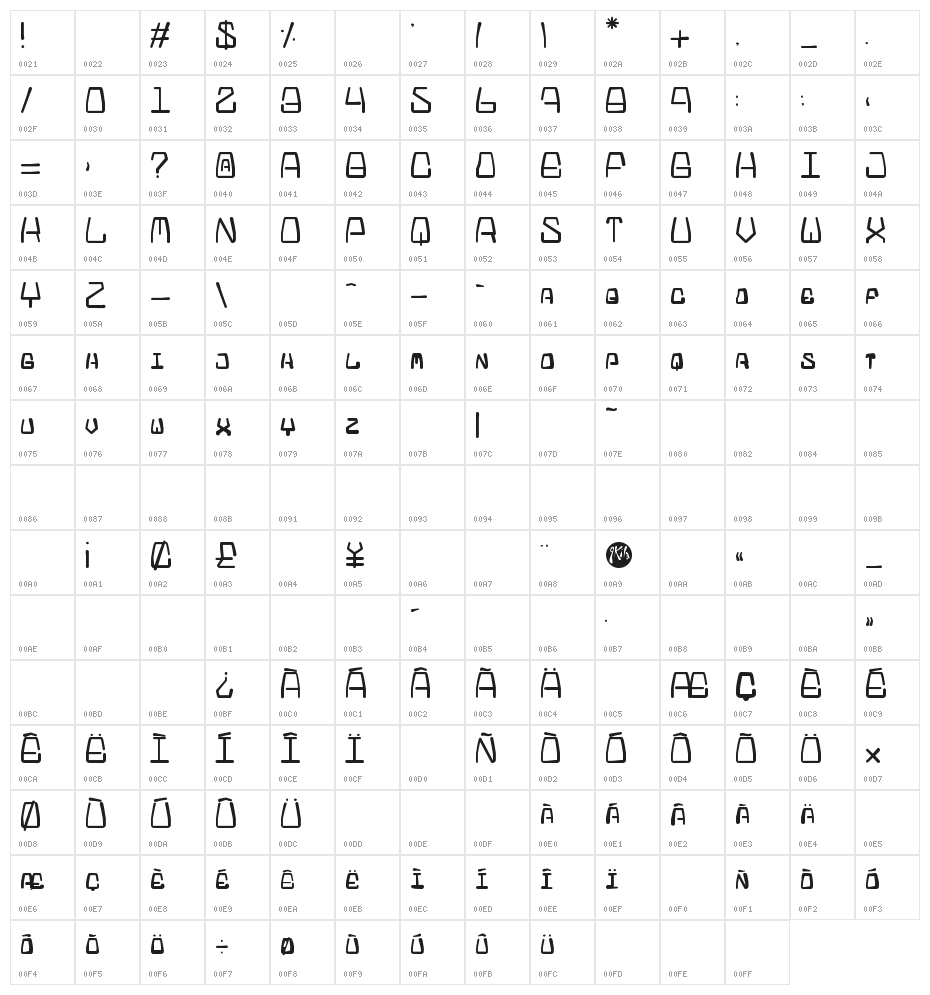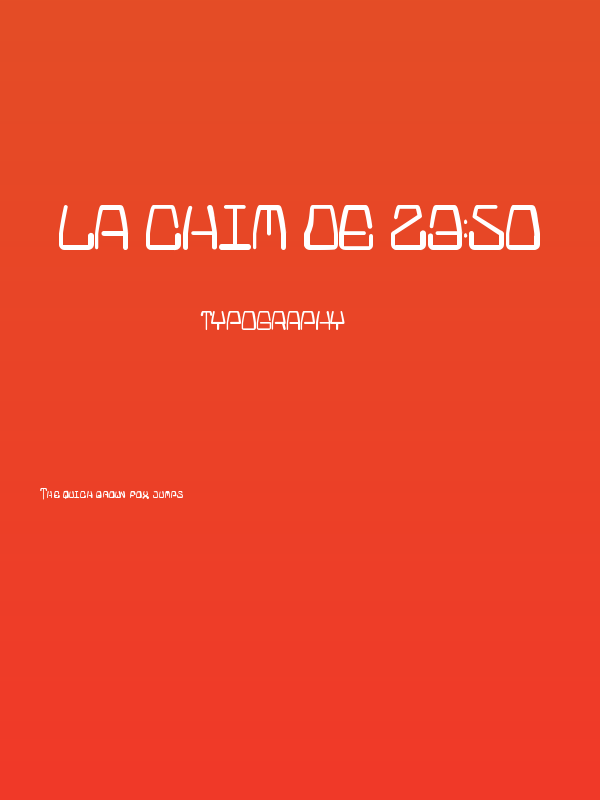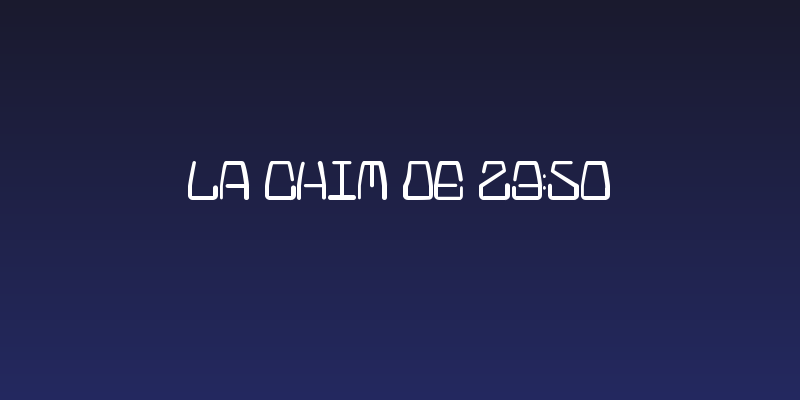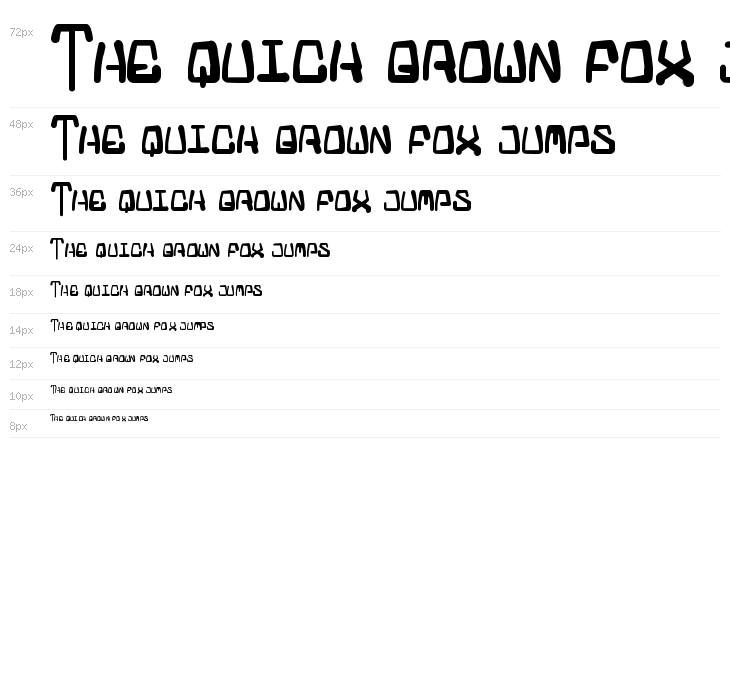
La Chim de 23:50 Font
La Chim de 23:50 Description
This font features a unique, geometric design with rounded edges and a monospaced appearance. The characters are constructed with consistent line thickness, giving it a uniform and modern look. The uppercase and lowercase letters maintain a similar height, enhancing its monospaced style. Numbers and special characters follow the same design principles, ensuring a cohesive appearance across all glyphs. The font's structure is clean and minimalistic, making it suitable for digital displays and futuristic themes. Its distinct style sets it apart, making it ideal for creative projects that require a modern and tech-inspired aesthetic.
| Use Case | Headlines, Logos, Digital displays |
| Proposed Projects | Ideal for digital displays, tech-themed designs, modern branding, and creative projects requiring a futuristic look. |